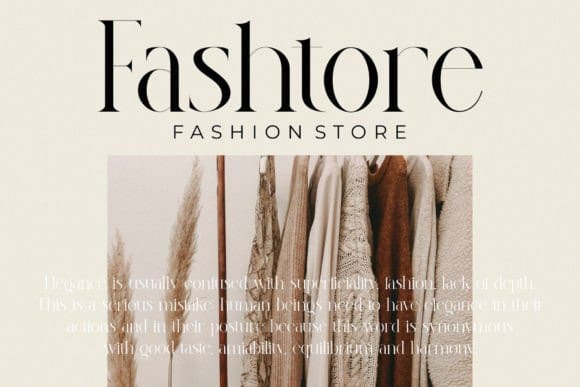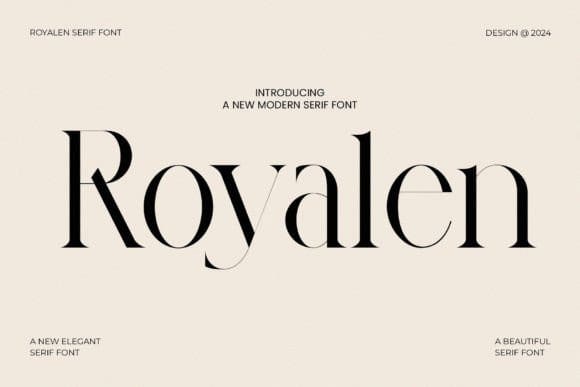
Royalen Font
Royalen Font – Modern Serif Typeface inspired by the famous minimalist logo perfect for design templates, brochures, videos, advertising branding, logos, invitation, layout designs, elegant crafting, beauty design, and others.